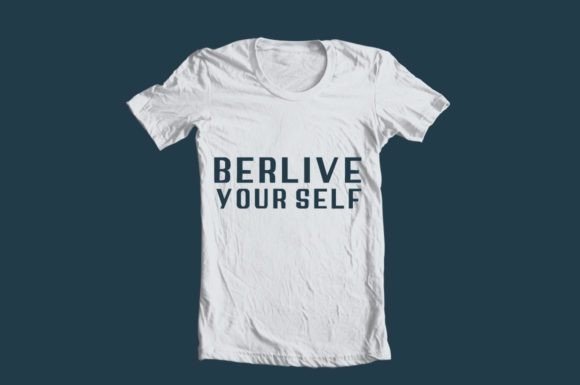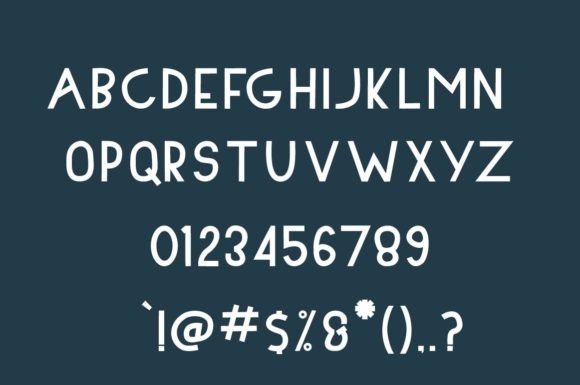
A Refreshing Touch of the Past: Discovering the Aeruans Font
As a designer, have you ever been stuck on a project, trying to find the perfect font to elevate your design? You scroll through font libraries, trying out different options, but nothing seems to capture the essence of your vision. That’s when you stumble upon a gem, a font that transports you back in time and gives your design a refreshing touch of the past.
Meet the Aeruans Font, a striking sans serif with a vintage style that’s perfect for logos, headers, and small amounts of text. Its unique blend of modern and classic elements makes it a valuable addition to any designer’s toolkit. Whether you’re working on a branding project, a website, or a marketing campaign, the Aeruans Font is sure to bring a touch of sophistication and elegance to your design.
With its versatility and timeless appeal, the Aeruans Font is a must-have for designers who want to create designs that stand out from the crowd. Its value lies in its ability to add a layer of depth and character to any design, making it a true gem in the world of typography.
Aeruans Font Key Features
- Font Family: Aeruans Font is a sans-serif font family, suitable for digital and print media.
- Character Count: The font family includes a wide range of characters, including uppercase and lowercase letters, numbers, and punctuation marks.
- Unique Characteristics: Aeruans Font features a clean and modern design, with a subtle rounded edge and a balanced x-height, making it highly readable and aesthetically pleasing.
Aeruans Font Review
I recently had the chance to work with the Aeruans Font and I must say it’s been an interesting experience. Here’s my honest review.
- ✨ Unique style: The Aeruans Font has a distinct, futuristic look that can add a touch of elegance to any design. It’s perfect for those who want to create a sense of high-tech sophistication.
- ✨ Versatility: This font is suitable for a wide range of projects, from corporate branding to sci-fi themed designs.
- ✨ High legibility: The font is well-designed and easy to read, even at smaller font sizes.
- ⚠️ Limited character set: The Aeruans Font has a relatively small character set, which can be a problem for projects that require a lot of special characters or languages.
- ⚠️ Overuse: The font’s unique style can be overwhelming if used too extensively. It’s essential to use it sparingly to avoid visual fatigue.
Overall, I think the Aeruans Font is a great addition to any designer’s toolkit. While it has its limitations, its unique style and versatility make it a valuable asset for the right projects. Just be mindful of its limitations and use it thoughtfully.
Tips for Getting the Most Out of Aeruans Font
Aeruans Font is a modern, elegant font that works well for headings and titles. Use it to add a touch of sophistication to your designs.
Combine Aeruans Font with other fonts to create a visually appealing contrast.
Experiment with different font sizes and colors to create a unique look.
Aeruans Font is ideal for:
Headings and titles
Business cards and resumes
Brochures and flyers
Websites and landing pages
Aeruans Font Alternatives
Pacifico is a beautiful, elegant script font that works well for titles, headings, and other display text. It has a similar feel to Aeruans Font, but with a more relaxed, casual vibe.
Use Pacifico when you want to add a touch of sophistication and elegance to your design, but still need a font that’s easy to read. It’s particularly well-suited for invitations, wedding designs, and other formal events.
Pacifico vs Aeruans Font: Pacifico has a more open, airy feel than Aeruans Font, which can make it feel more modern and fresh. However, Aeruans Font has a more dramatic, attention-grabbing quality that can be useful for certain designs.
Q: What is the recommended font size range for Aeruans Font?
The recommended font size range for Aeruans Font is between 12px and 24px. However, it can be used at larger or smaller sizes depending on the specific design requirements and preferences.